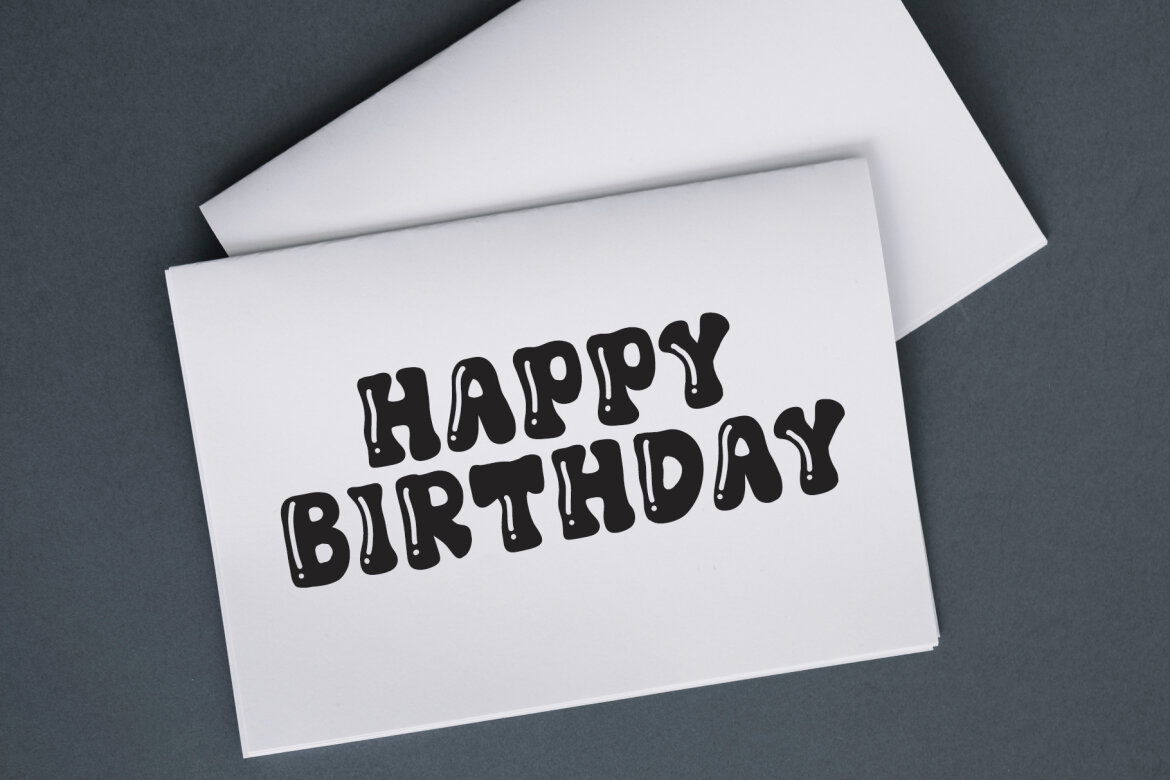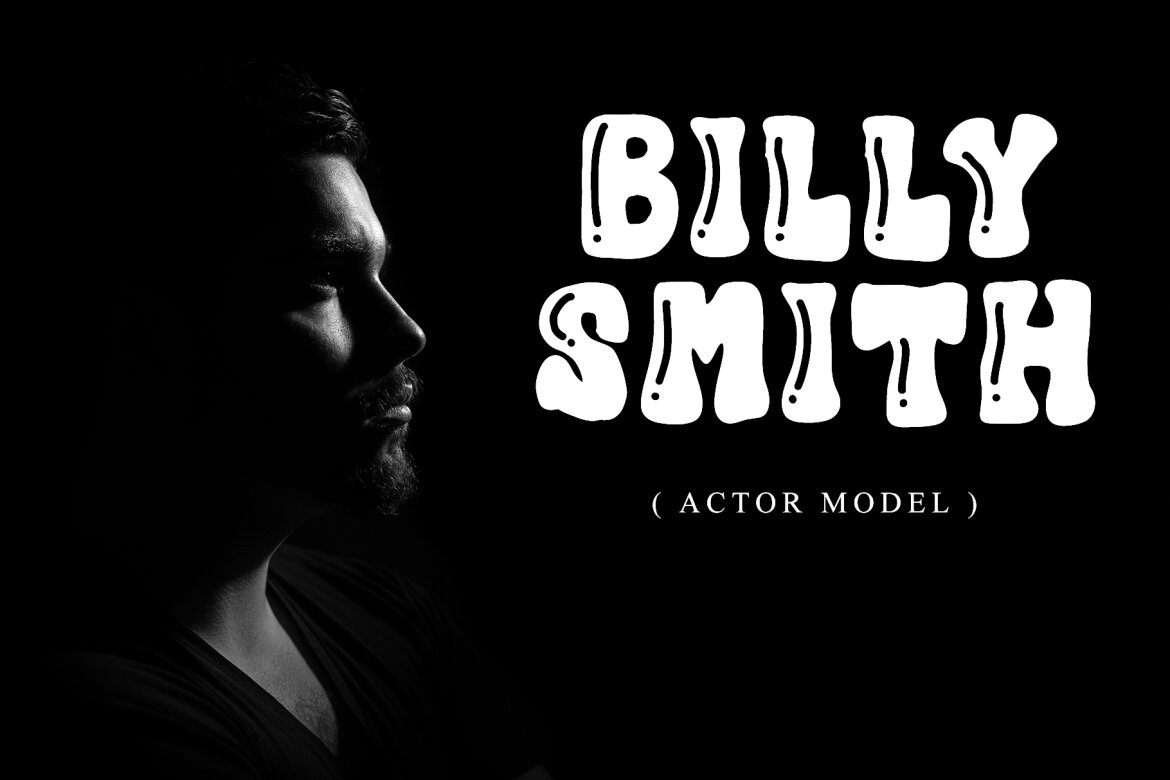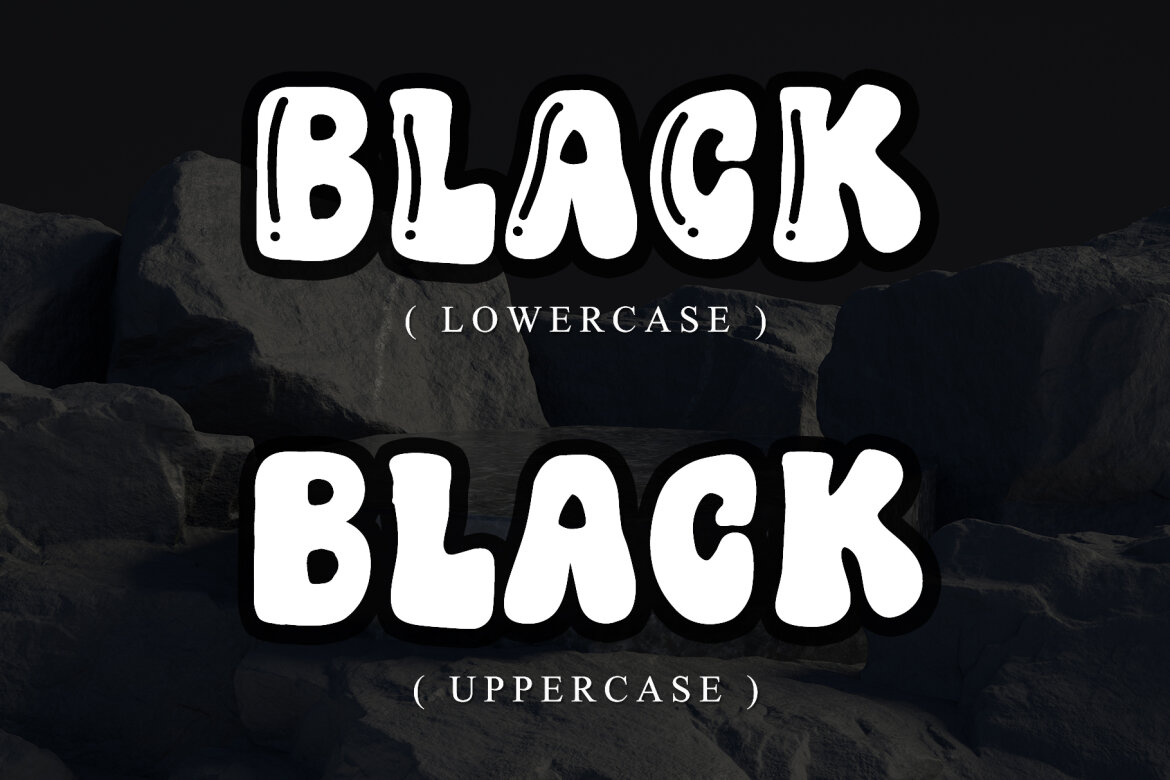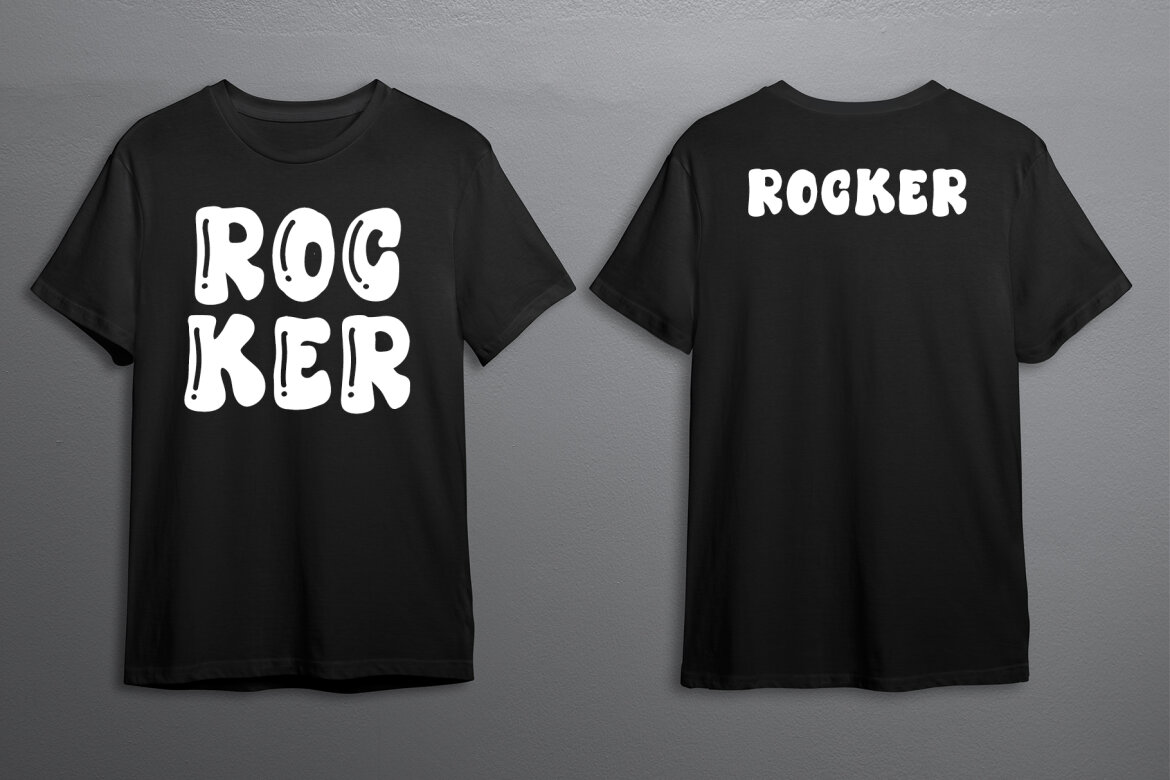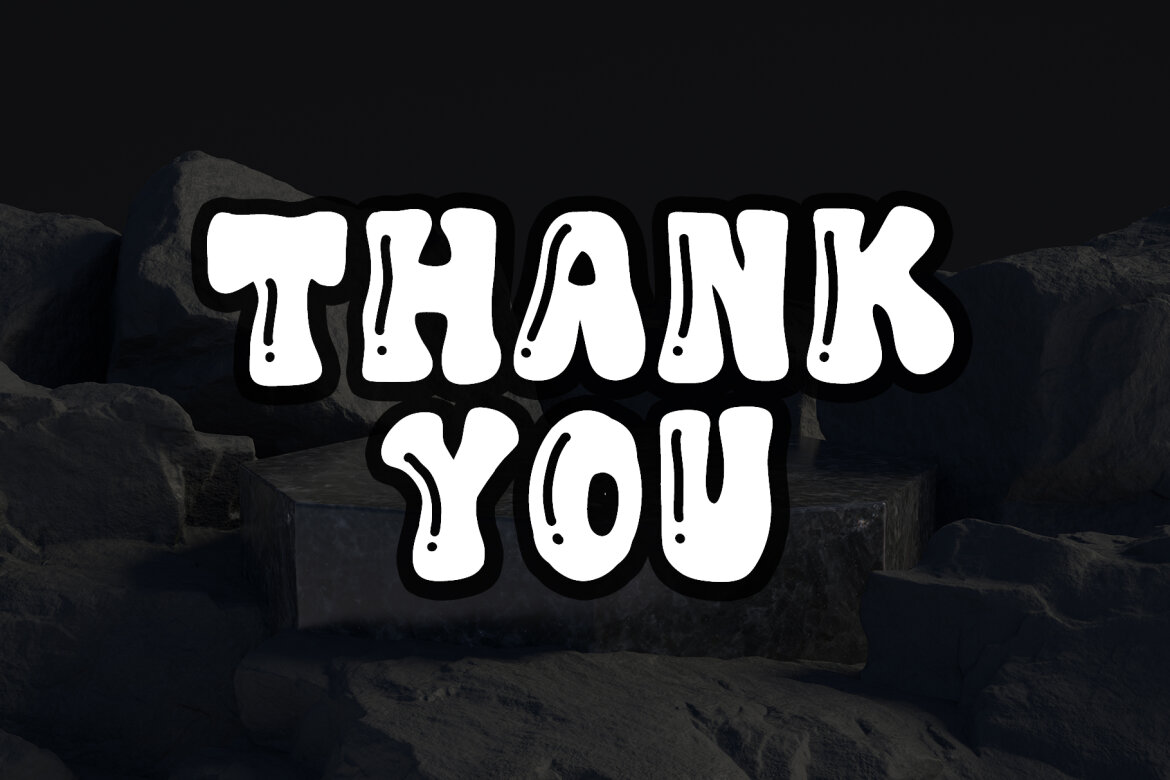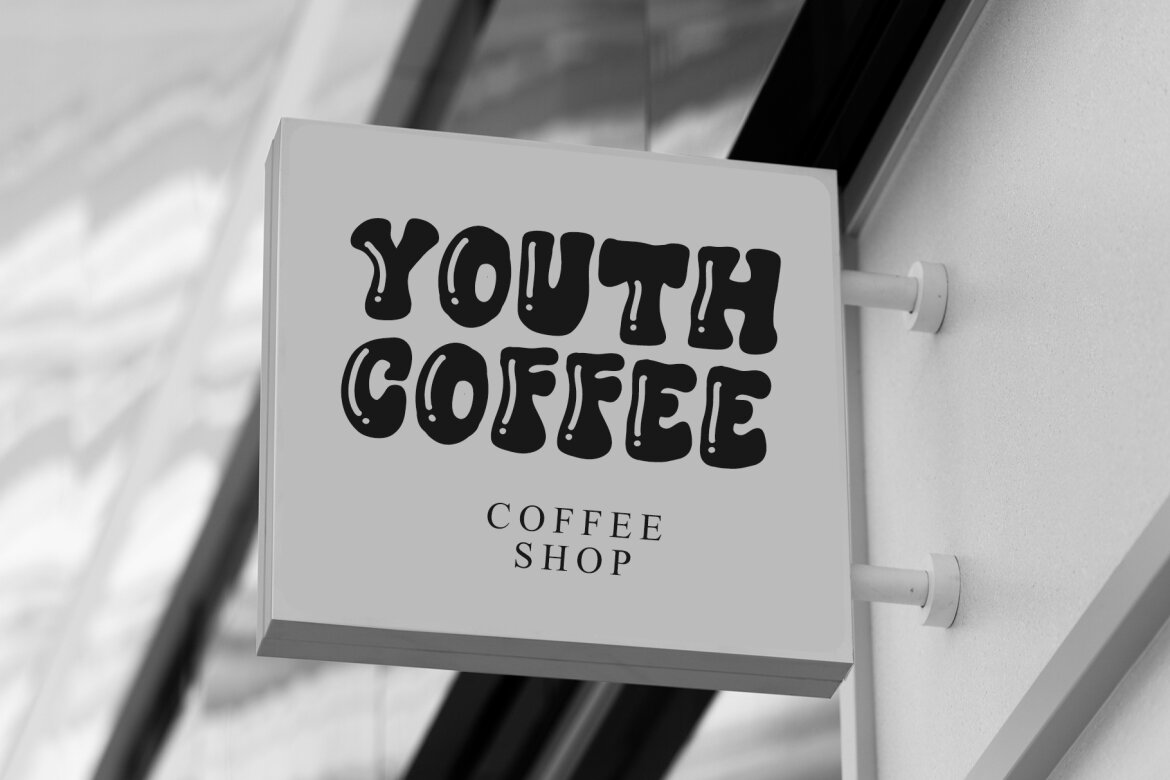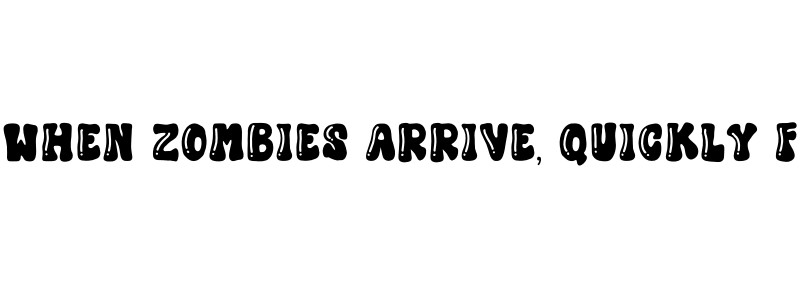
Black Hulk - Free Font
Black Hulk is a cool, fat display font perfect for use on cheerful topics. Very suitable for children’s themed designs, especially when combined with bright colors.